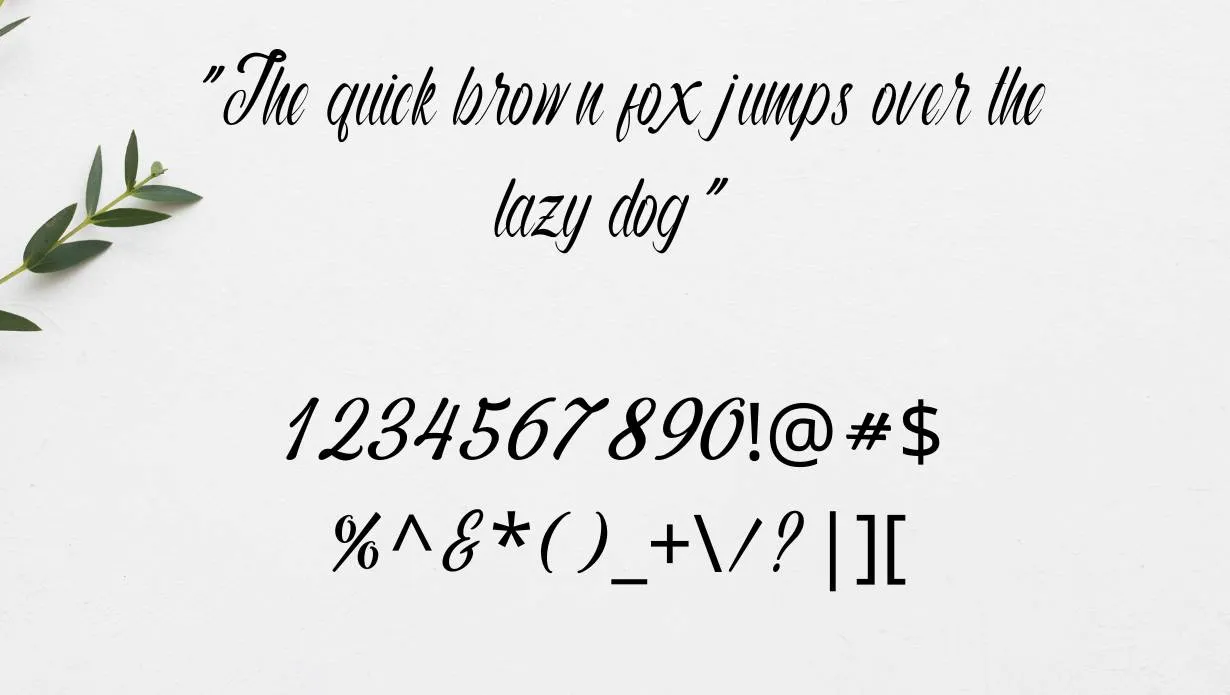
The Autumn Flower Typeface Font has a whimsical and artistic design. Its organic and intricate letters evoke a sense of nature and creativity. This font is often seen in designs aiming for a natural and artistic feel, perfect for seasonal campaigns or creative projects.
| Name | Autumn Flower Typeface Font |
Its unique appearance adds a touch of artistry, making the text look imaginative and inviting. Whether used in posters or product packaging, this font brings a sense of charm and creativity to the writing.